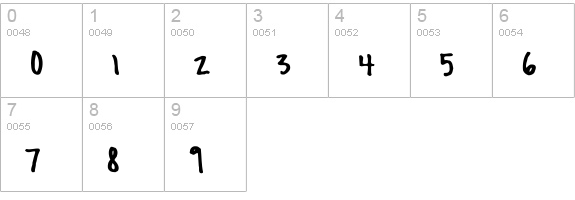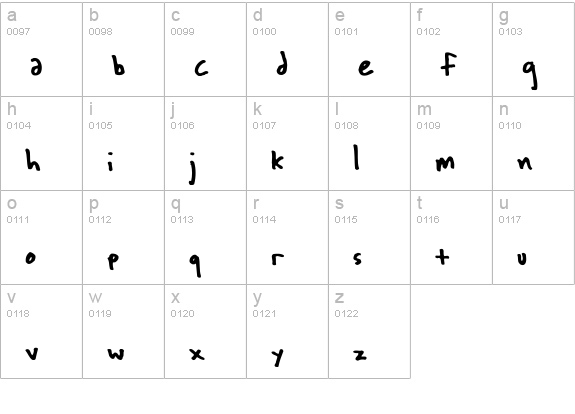
Introducing Wichita, a captivating font that effortlessly combines elegance with versatility. This stunning typeface exudes a timeless appeal, making it perfect for a wide range of creative projects. Whether you're designing a sophisticated logo, crafting an eye-catching poster, or creating a stunning website, Wichita will elevate your work to new heights. With its clean lines and graceful curves, Wichita brings a sense of refinement to any design. The carefully crafted letterforms exude a sense of professionalism and sophistication, making it ideal for branding and corporate projects. This font is equally at home in more artistic endeavors, adding a touch of elegance and flair to invitations, greeting cards, and packaging. What sets Wichita apart is its remarkable versatility. With multiple weights and styles to choose from, you can easily customize the font to suit your specific needs. Whether you prefer a bold and impactful look or a more delicate and graceful aesthetic, Wichita has you covered. The extensive character set also includes a variety of ligatures and alternates, allowing you to create unique and beautiful typography. Best of all, Wichita is available for free download on FontsMarket.com. We believe that great design should be accessible to everyone, which is why we're thrilled to offer this exceptional font at no cost. Simply visit FontsMarket.com to discover the beauty and versatility of Wichita for yourself. Download it today and unleash your creativity with this exquisite typeface.